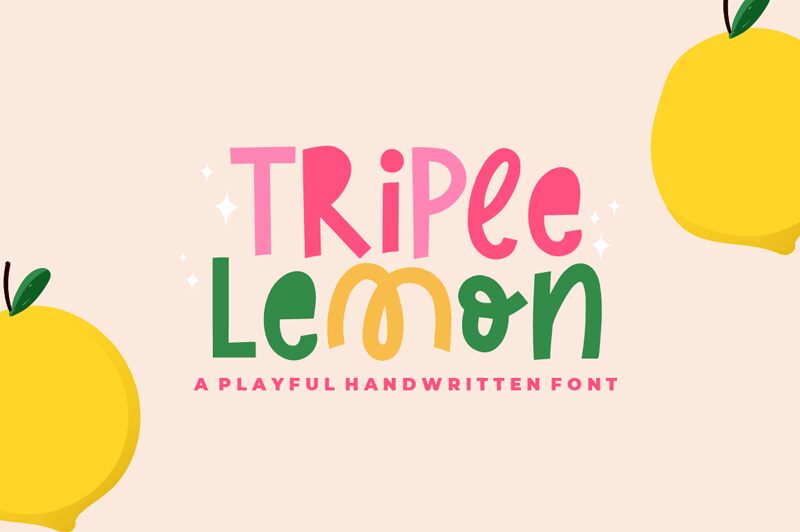
Triple Lemon, designed by ReyreyBlue, is a playful display font that adds a pop of fun to any project. Its semi-condensed width makes it perfect for headlines and titles, catching the eye with its unique comic style. This versatile font is suitable for a variety of projects such as children's books, invitations, packaging designs, and even social media posts. Bring some zest to your next project with Triple Lemon!